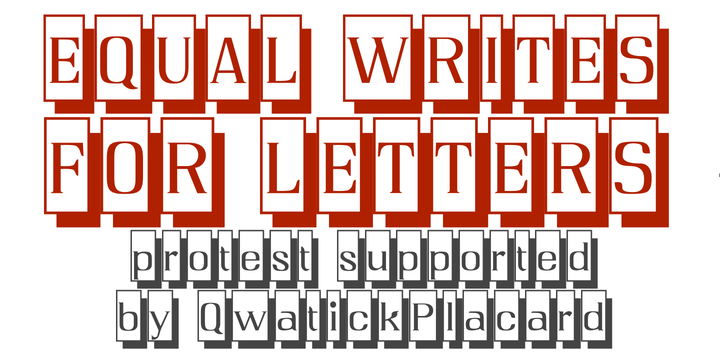
Qwatick Placard
Design Credits
Designed by: Robert Schenk
Designed when: 1995
Contained in Category: Funny
Design owned by: Ingrimayne Type
Qwatick Placard
QwatickPlacard has letters on shadowed rectangles. The letters are from Qwatick.